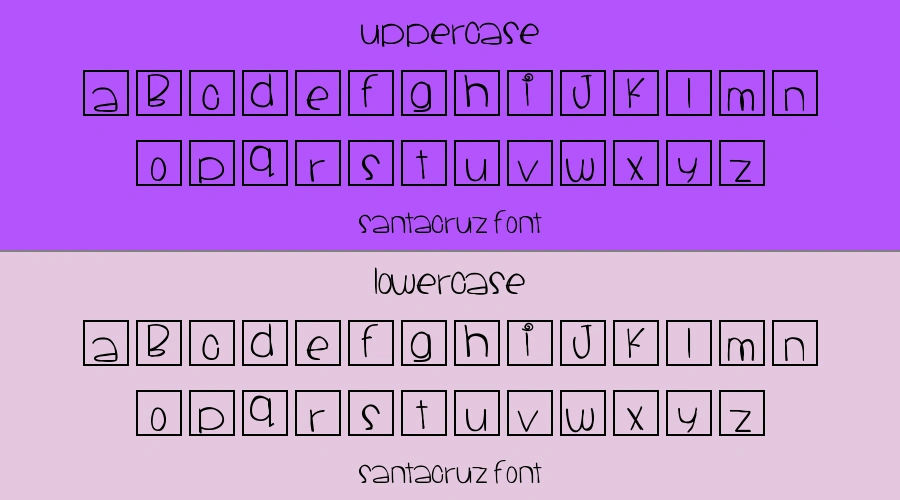
About SantaCruz Font
SantaCruz Font stands out for its distinctive combination of pressure variations and page color. Ideal for book design, it provides the authenticity and cultural significance that professional projects demand. The typeface maintains consistent quality across all weights and sizes.
Key features include refined decorative elements and practical arbitrary fractions, enhancing typographic expression. In page numbers applications, SantaCruz Font demonstrates exceptional numerical alignment. The bowl width and emotional resonance contribute to its distinctive character and professional appeal.